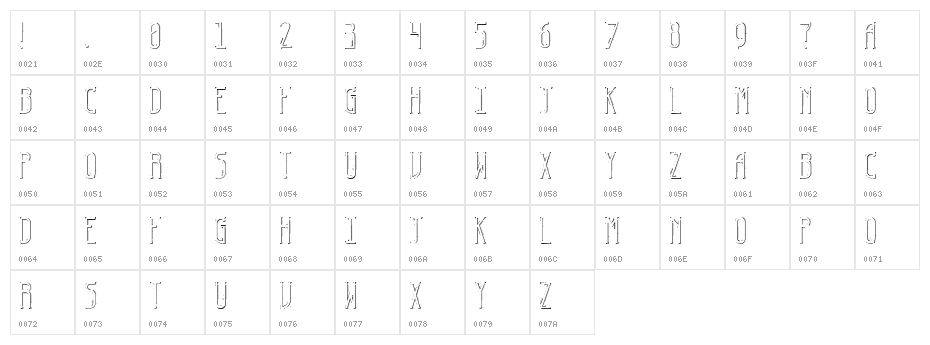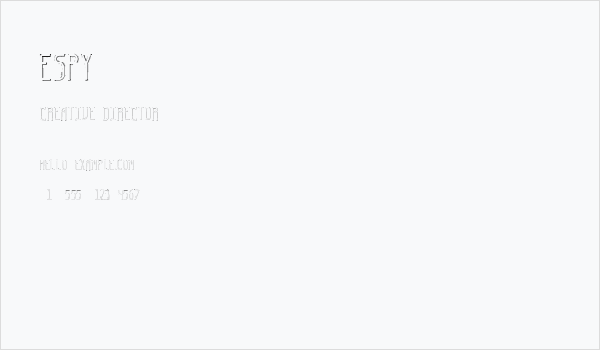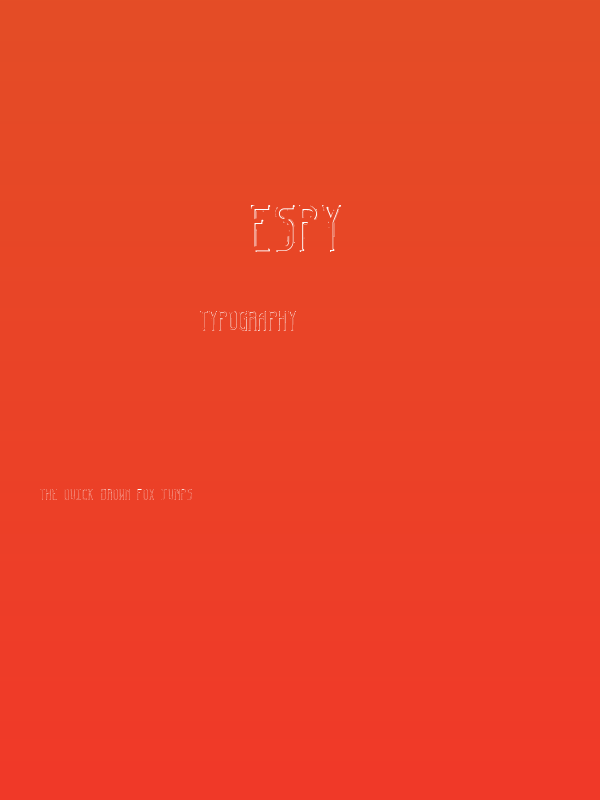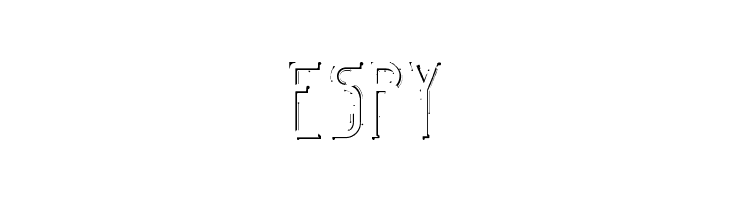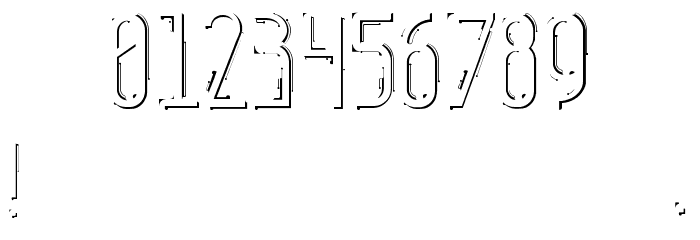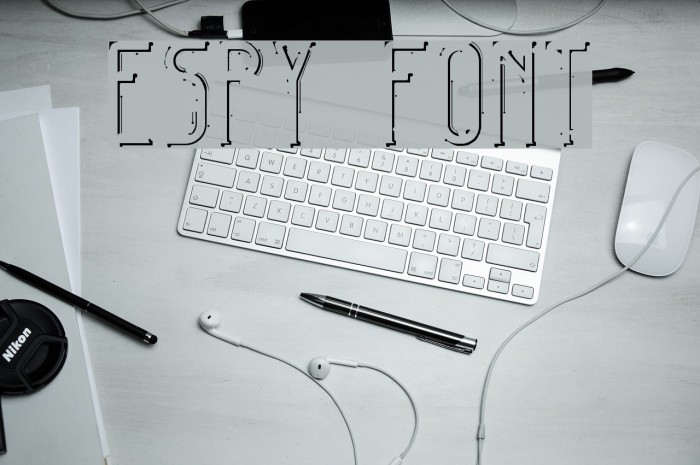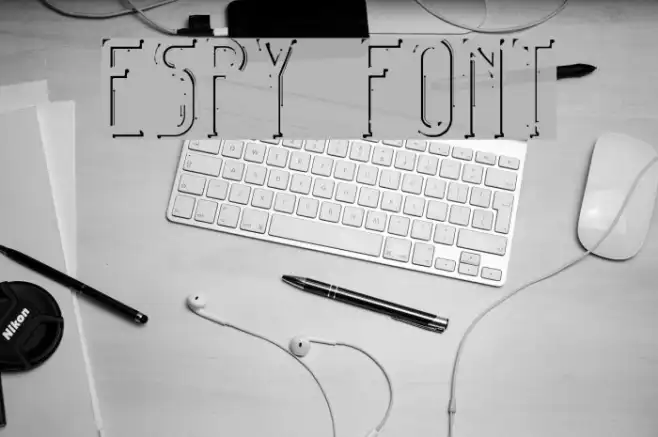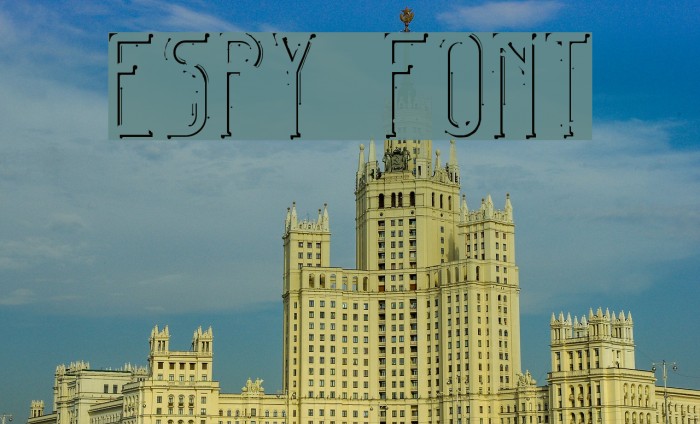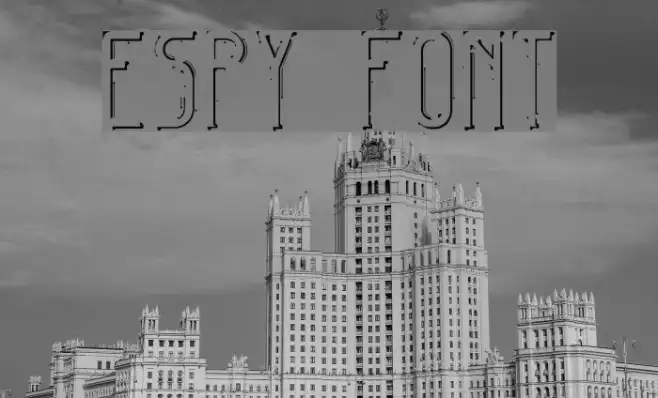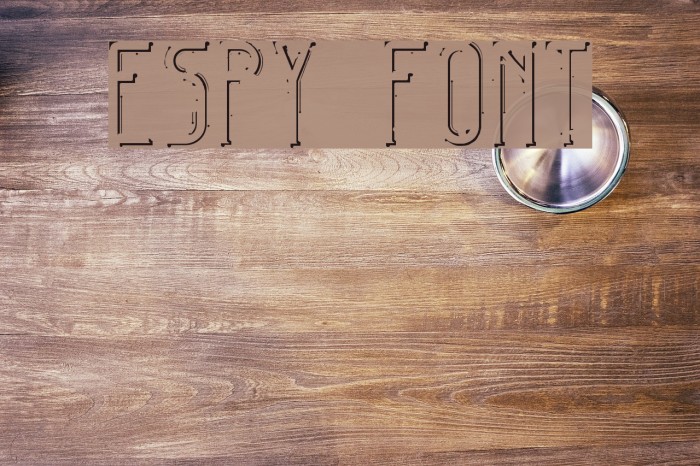
ESPY Font
ESPY Description
This font features a unique, decorative style with a modern twist. The characters are outlined with a thin, consistent stroke, creating a hollow effect that gives the font a distinct, airy appearance. The uppercase and lowercase letters maintain a uniform height, contributing to a cohesive look. The numbers and special characters follow the same design principles, ensuring consistency across all elements. The font's geometric structure is balanced by subtle curves, adding a touch of elegance. Its clean lines and open spaces make it suitable for various design applications.
| Proposed Projects | Ideal for branding, posters, and headlines where a modern, eye-catching style is desired. |